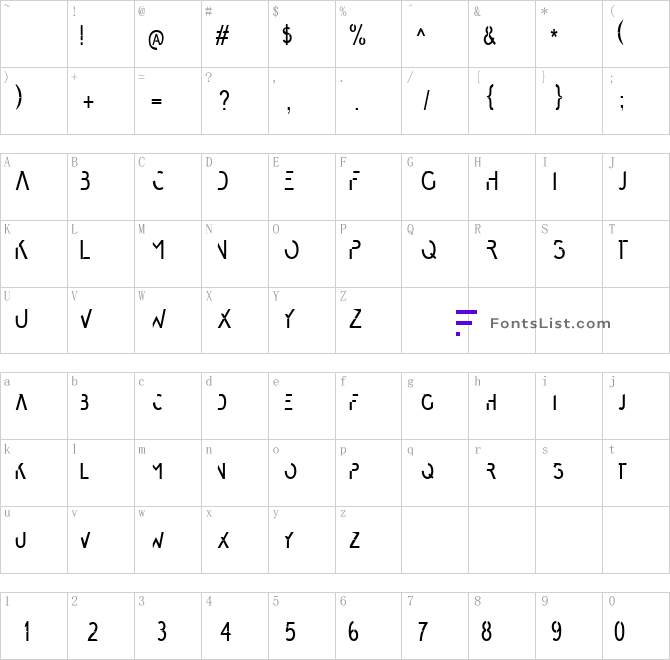
- Font Name:Anggun
Anggun-Regular.ttf is a very beautiful artistic font, Anggun-Regular.ttf is widely used in the design and printing of various books and pictures,Anggun-Regular.ttf has a strong visual impact,Anggun-Regular.ttf is a commonly used font in newspapers, magazines and books, and is used in posters, e-commerce Poster design, store design, logo design, font design and other fields.Anggun-Regular.